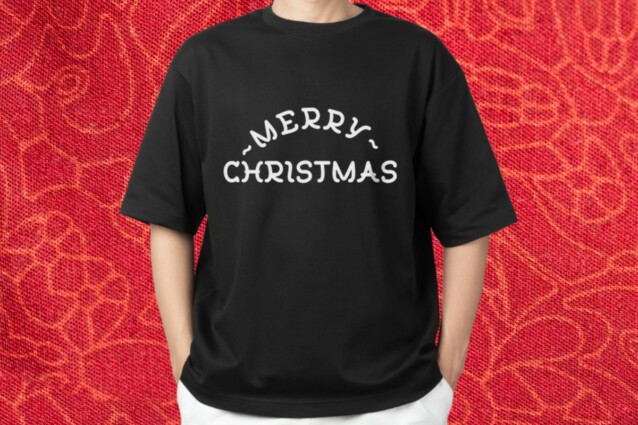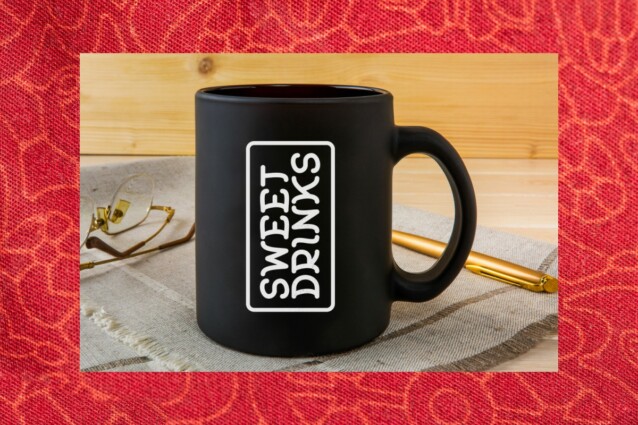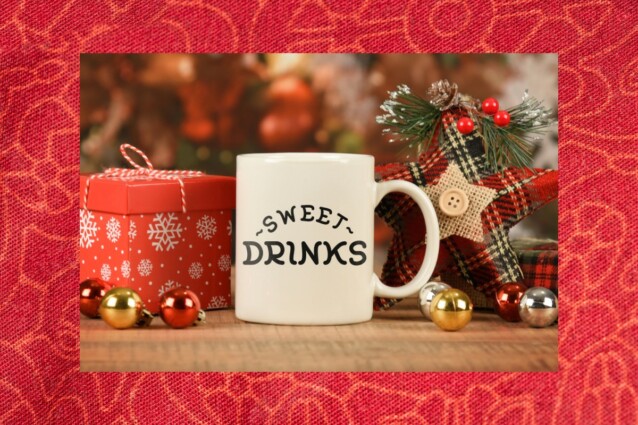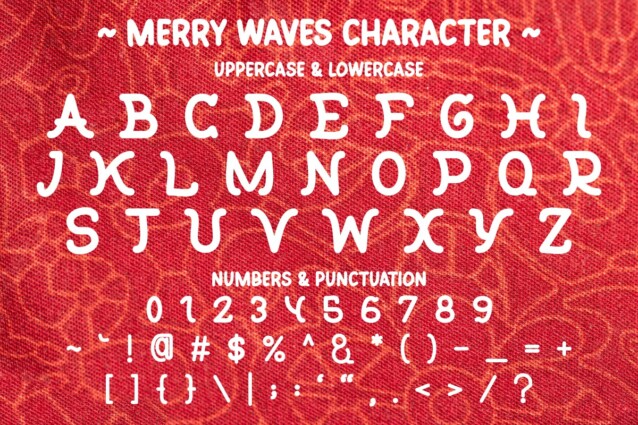
Merry Waves Font
Merry Waves Font is a delightful display font that brings the joyful essence of the holiday season to life. This unique typeface, adorned with whimsical curves and playful waves, is designed to add a touch of festive charm to your Christmas-themed designs.